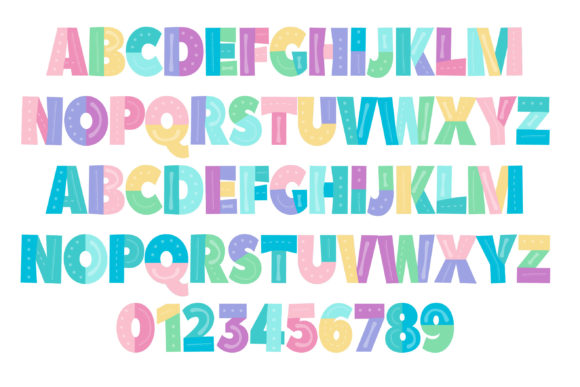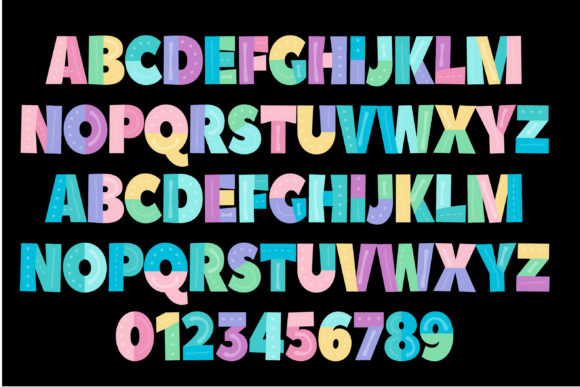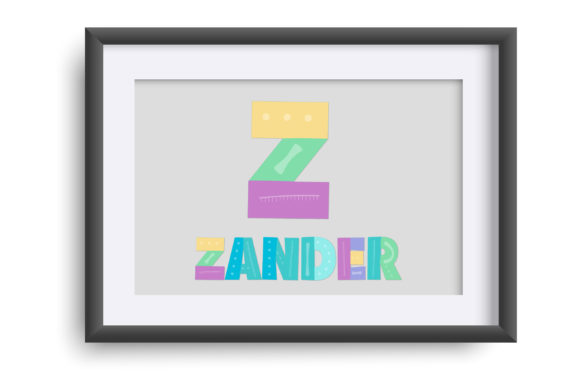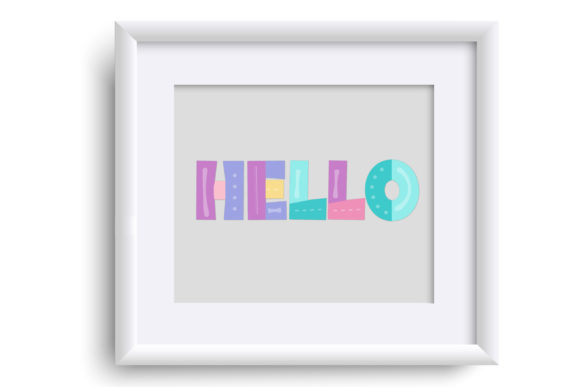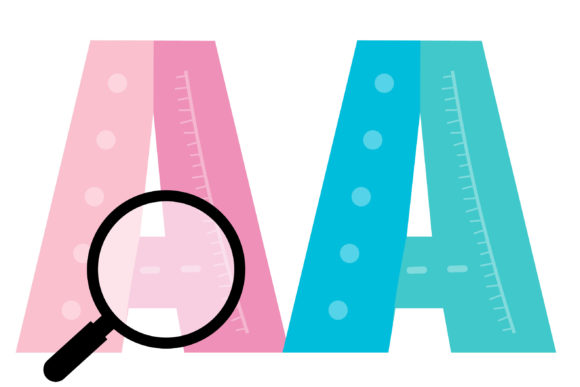
Wigglebop Font
About Wigglebop Font
Wigglebop is indeed a delightful and playful full-color font that is sure to bring a burst of charm to your designs. With its chunky lettering and pastel colors, this font exudes a whimsical and joyful vibe that will instantly capture the attention of viewers. No matter the project, whether it’s invitations, greeting cards, or any other creative endeavor, incorporating Wigglebop into your designs will make them come alive with its vibrant energy.
One of the standout features of Wigglebop is its PUA encoding, which provides you with easy access to a wide range of amazing glyphs and ligatures. This flexibility allows you to further customize your designs and add even more visual interest, ensuring that your creations are truly unique and captivating.
Wigglebop is particularly well-suited for designs targeting children, parties, or any context that calls for a touch of fun and vibrancy. Its playful nature and charming aesthetics will instantly create a sense of joy and excitement, making it a perfect choice for capturing the imaginations of both young and young-at-heart audiences.
Embrace the whimsical and delightful nature of Wigglebop, and let it infuse your designs with its unique and captivating style. Watch as your creations come to life, radiating with a sense of playfulness and creativity that is sure to leave a lasting impression. Get ready to embark on a colorful and exciting design journey with Wigglebop as your trusty companion.